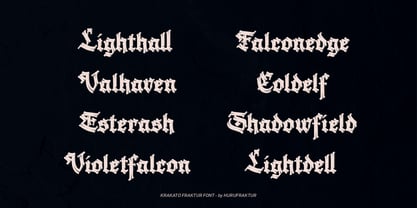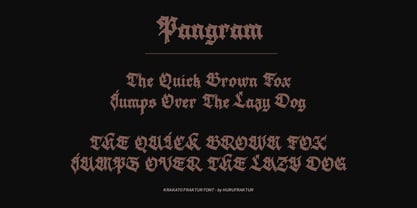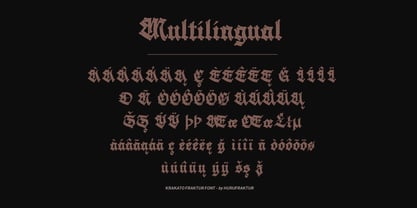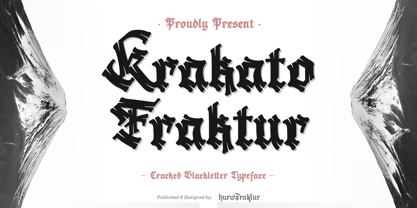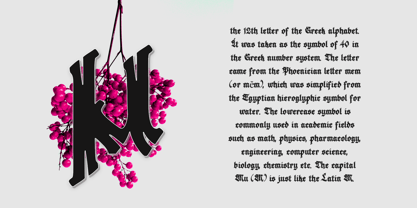
Krakato Fraktur
by Hurufraktur
The Krakato Fraktur Font Family was designed by Fadly Pratama and published by Hurufraktur. Krakato Fraktur contains 1 styles. More about this family
Krakato Fraktur is a bold and cracked blackletter typeface that blends the raw energy of Gothic tradition with a modern, fractured aesthetic. Designed by Hurufraktur, this font captures the dramatic weight of medieval lettering while introducing a distressed, explosive edge that makes it perfect for contemporary design. Inspiration & Concept Krakato Fraktur was inspired by the sheer force of Krakatoa’s volcanic eruption—a moment of history that symbolizes both destruction and rebirth. This concept translates into its cracked blackletter design: bold, heavy strokes disrupted by fractured details that give the typeface a rebellious, untamed feel. The name itself—Krakato Fraktur—pays tribute to both the volcanic power of Krakatoa and the Fraktur style, a cornerstone of Gothic typography. Together, they embody strength, drama, and raw expression. Who It’s For Krakato Fraktur is for designers, bands, and brands who want to make a fearless statement. Perfect for: Heavy metal & rock album covers Streetwear & apparel graphics Posters & flyers for bold events Tattoo-inspired design Gaming & esports branding Editorial layouts with an edgy aesthetic Logos and identity projects that demand authority and intensity If you want a typeface that feels powerful, rebellious, and unforgettable, Krakato Fraktur is your weapon of choice. What’s Included Full A–Z uppercase & lowercase Numerals 0–9 Standard punctuation & special characters Cracked letter detailing for added personality Smooth kerning & spacing for dramatic layouts Resolution & Flexibility Every glyph is designed with fractured details that preserve Gothic readability while adding visual grit. Krakato Fraktur adapts well to large-scale display use—whether on posters, apparel, or digital banners—making it ideal for bold, high-impact designs. About the Creator Krakato Fraktur was designed by Hurufraktur, a type designer blending centuries-old calligraphic traditions with modern experimental typography. Known for expressive, rebellious letterforms, Hurufraktur crafts fonts that are not only read—but felt. Use & Licensing Recommended for display and headline use (not body text) Perfect for branding, music, fashion, and cultural projects Please refer to the EULA for full licensing details
Designers: Fadly Pratama
Foundry: Hurufraktur